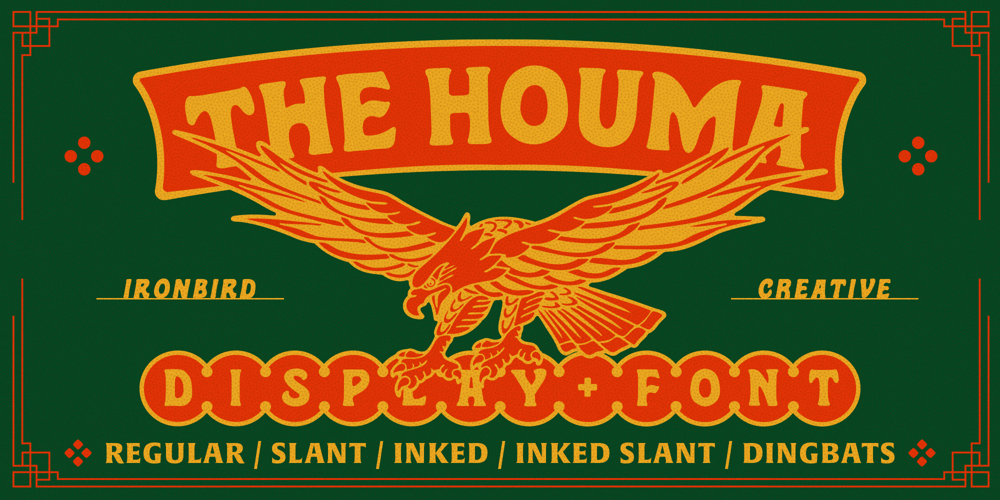
The Houma Font Family was designed by Septianto Nugroho and published by Ironbird Creative. The Houma contains 5 styles and family package options. The Houma is a bold serif organic hand-drawn typeface. This item consist of 5 FONTS in various styles to make better design!What Will You Get :The Houma Regular The Houma Slant The Houma Inked Slant Uppercase We hope you enjoy the font, please feel free to comment if you have any thoughts or feedback. Thanks for purchasing and have fun! Regards, Ironbird Creative